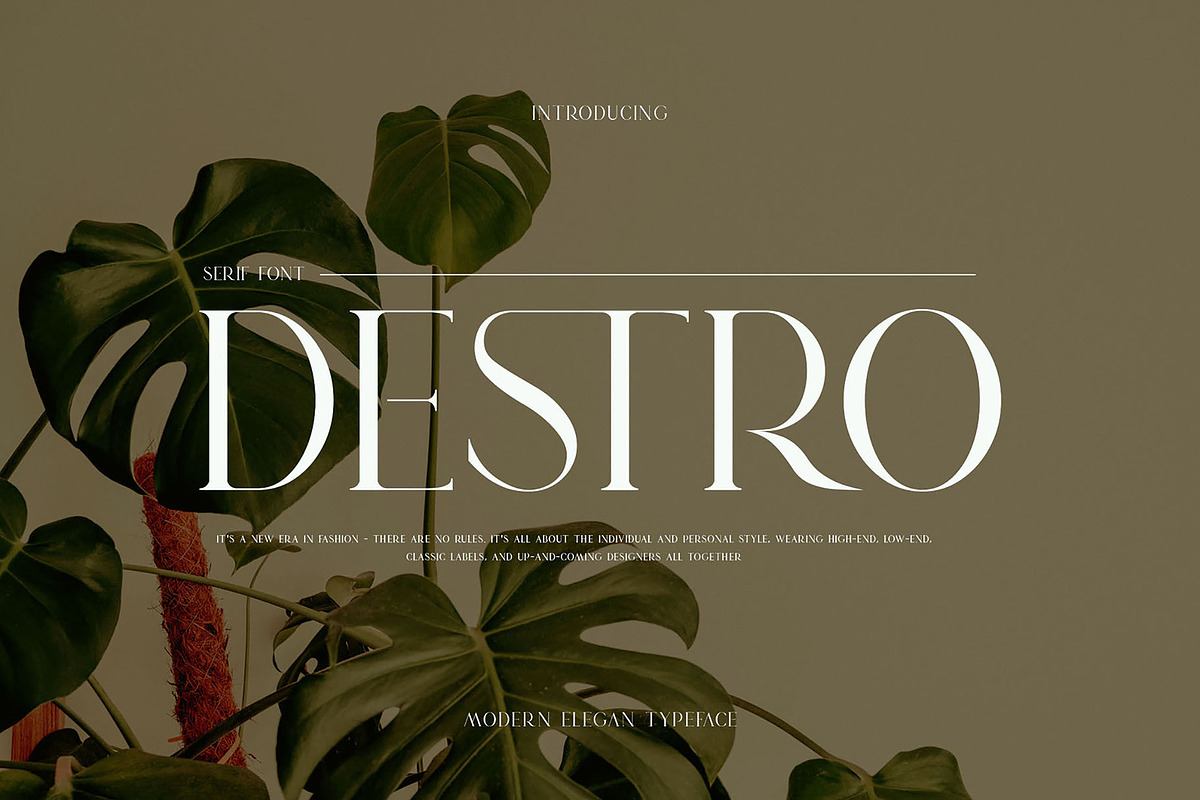
DESTRO Ligature Serif Font Free Download
DESTRO Ligature Serif Font Free Download is a striking, modern serif typeface that features elegant ligatures and stylish alternates to elevate any design. With sharp edges, dramatic contrast, and unique character combinations, DESTRO is ideal for luxury branding, fashion editorials, logo design, upscale packaging, and attention-grabbing headlines.
This font is designed to make a statement—whether you're crafting a minimalist logo or a bold magazine spread. The built-in ligatures add a custom, high-fashion feel, giving your text an extra layer of sophistication and creative flair.